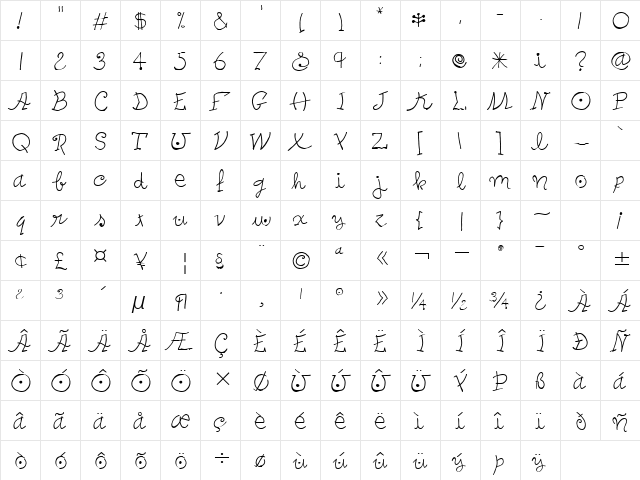
Peters MiroITC TT Regular Font Preview
Peters MiroITC TT Regular
Peters MiroITC TT Regular Font Details
Design Context for Peters MiroITC TT Typeface
Peters MiroITC TT is a composed and adaptable typeface that performs quietly and consistently across a wide range of design contexts.